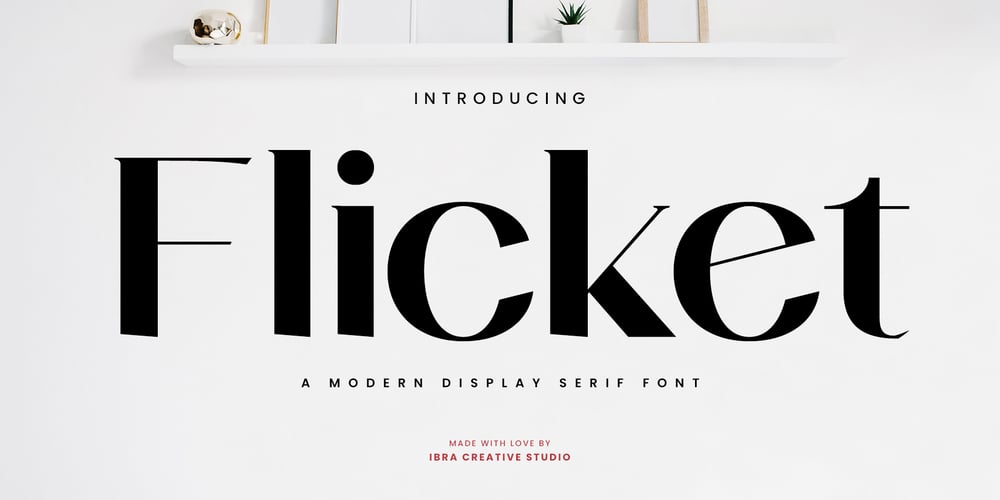
Flicket Font Family was designed by Roisatul Azizah and published by IbraCreative. Flicket contains 1 styles and family package options. Flicket is a contemporary display serif font that seamlessly blends sophistication with a touch of whimsy, making it an ideal choice for modern design projects. With its clean lines and subtle flourishes, Flicket exudes a timeless elegance that captures attention while maintaining readability. The typeface strikes a harmonious balance between classic serif elements and a contemporary aesthetic, making it versatile for a range of applications, from editorial design to branding. Flicket’s distinctive letterforms showcase a refined yet approachable style, allowing it to convey both professionalism and creativity in a single glance. This modern display serif font, with its unique personality, adds a distinctive flair to any project, making it a standout choice for those seeking a perfect blend of tradition and innovation in typography.